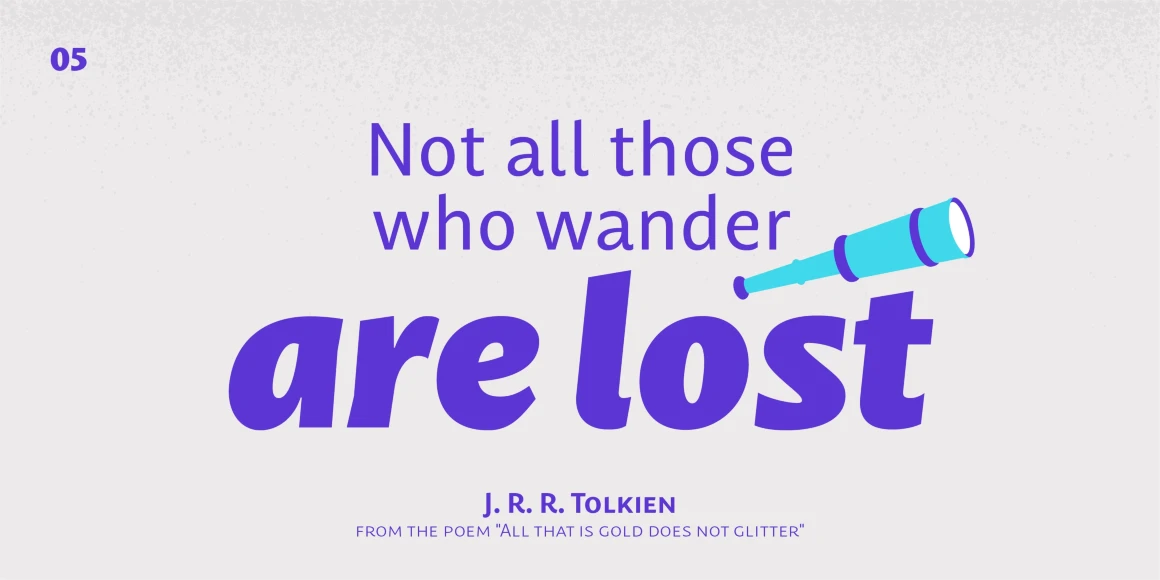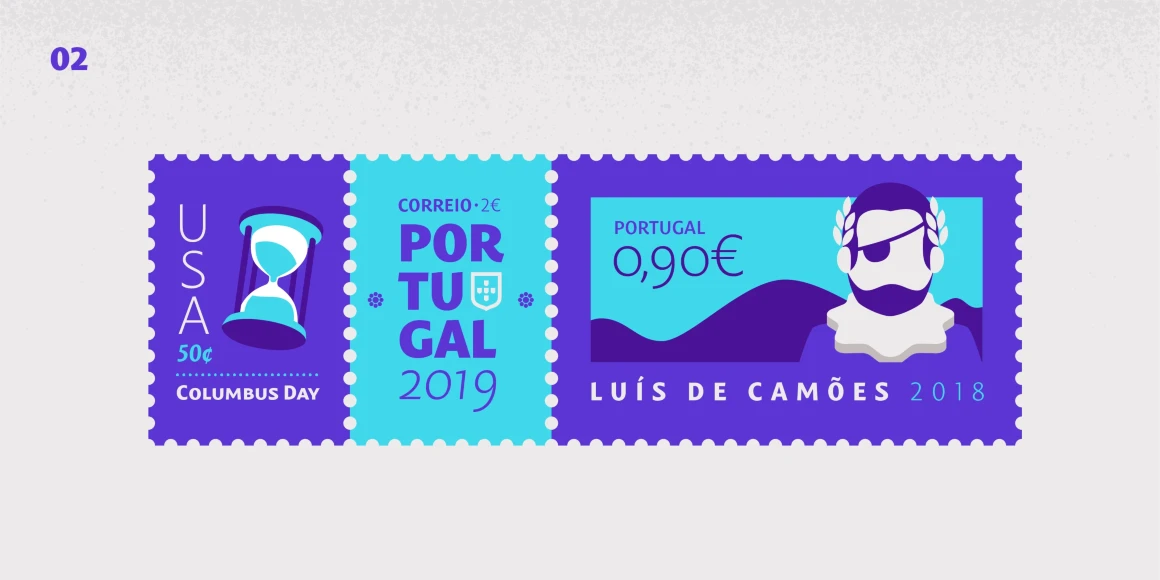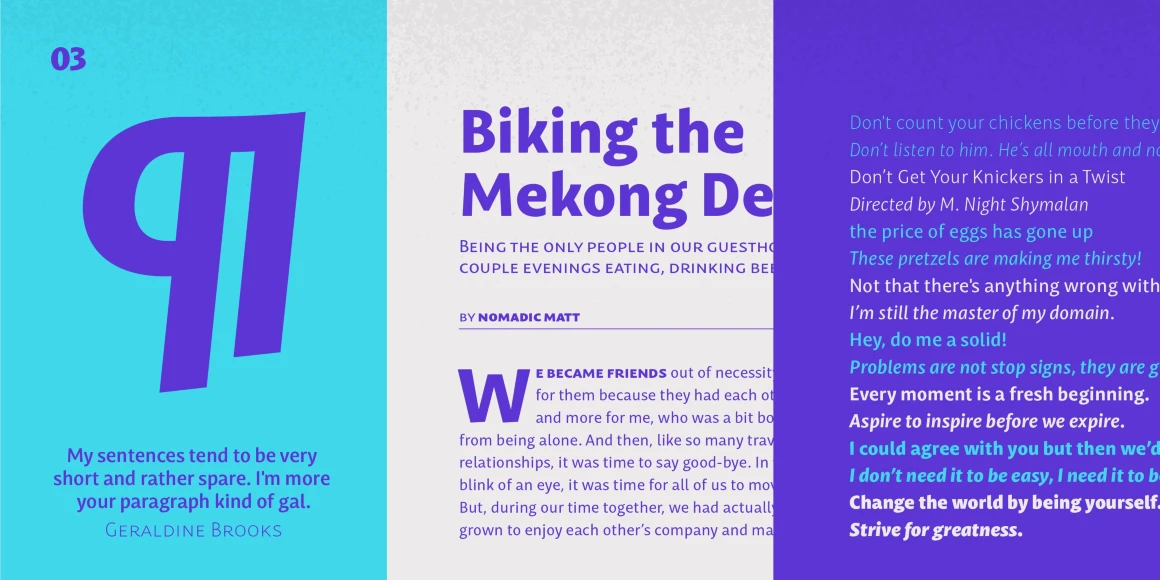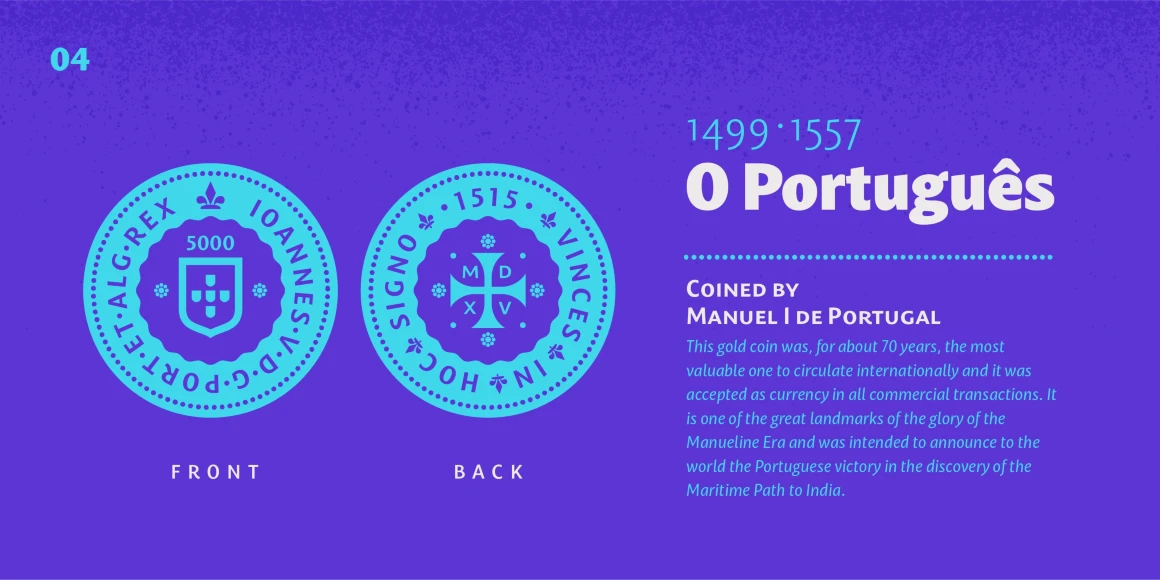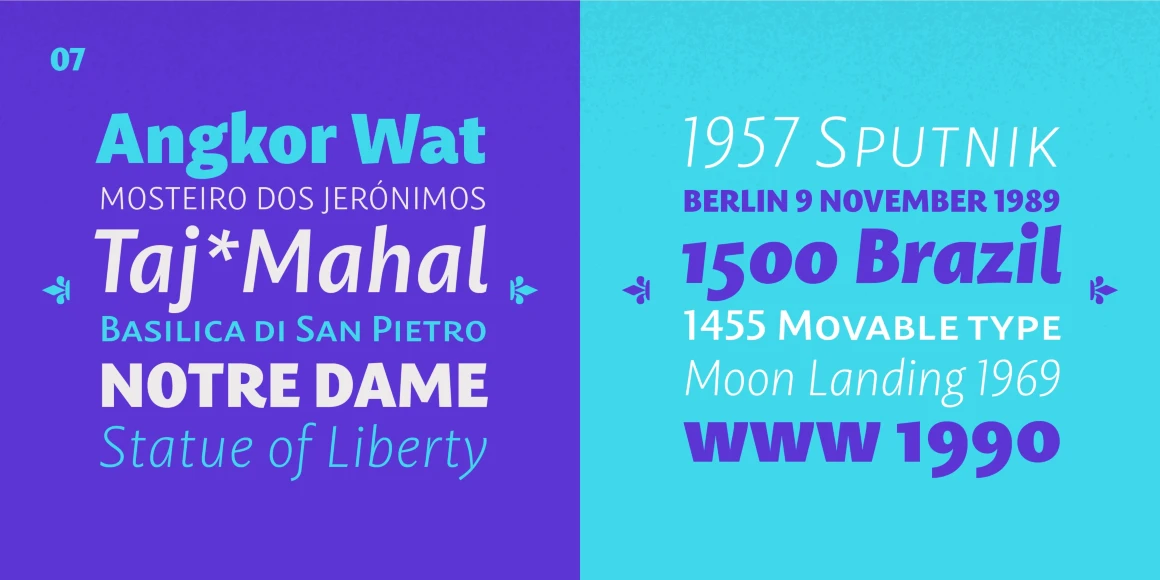
Mastro Sans
By Natanael Gama
Mastro Sans is a contemporary humanist sans serif. The lowercase shapes are simple yet distinct, its organic design (specially the italic) are based on different stroke modulation ideas combined into a coherent whole. The uppercase is inspired in Roman capital proportions yet keeping the lowercase stroke modulation. Mastro has a total of 16 styles and it covers a large set of languages. It also has many Opentype features, such as small caps, superscript numbers and letters, old style and lining figures, tabular figures, case sensitive forms, fractions and more. It is a design with a lot of personality while being versatile. You can use it in branding, editorial, web and video.